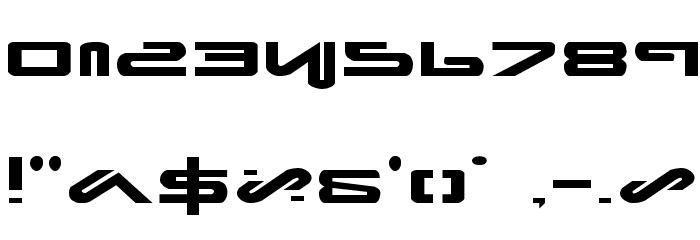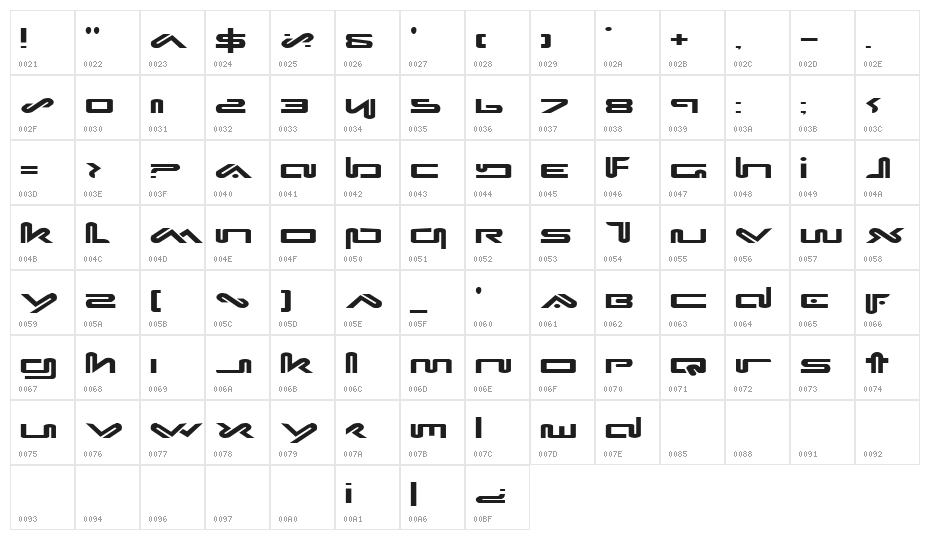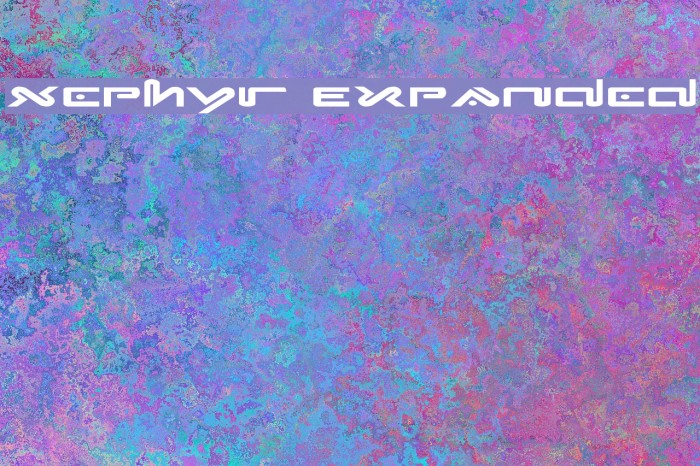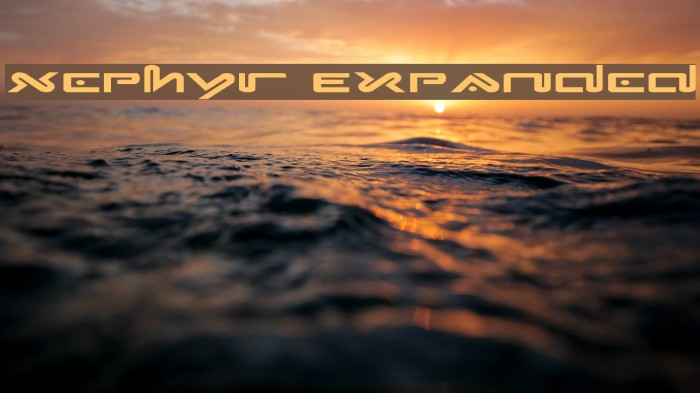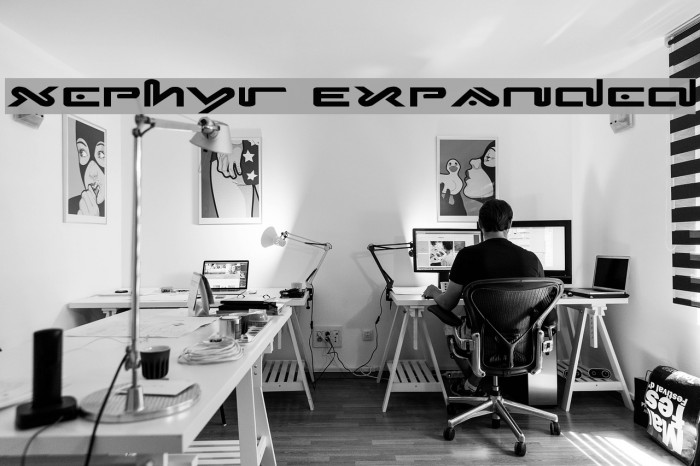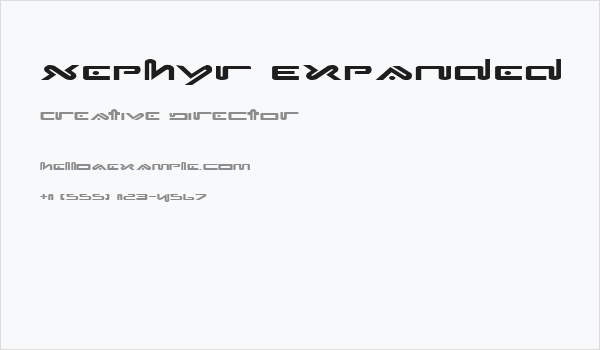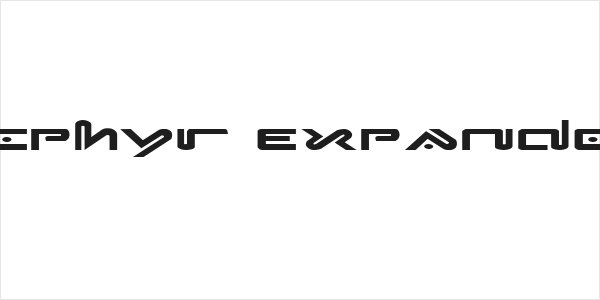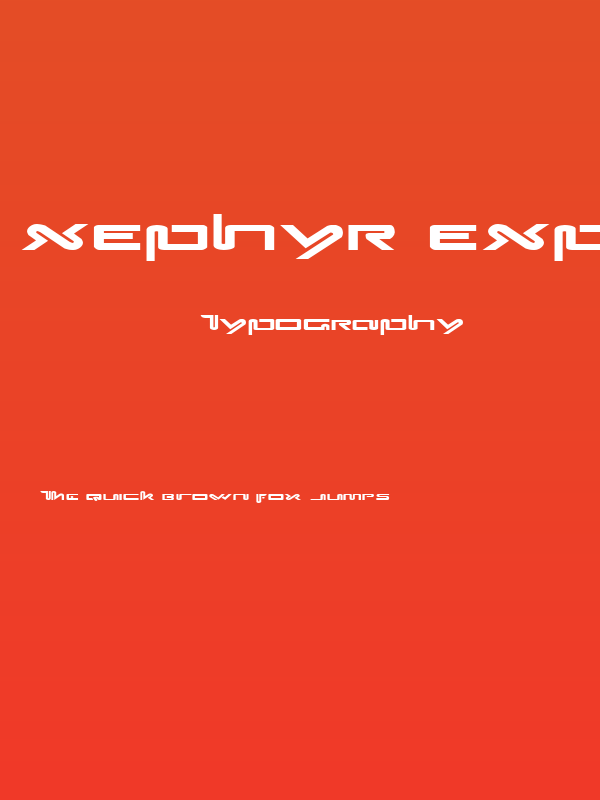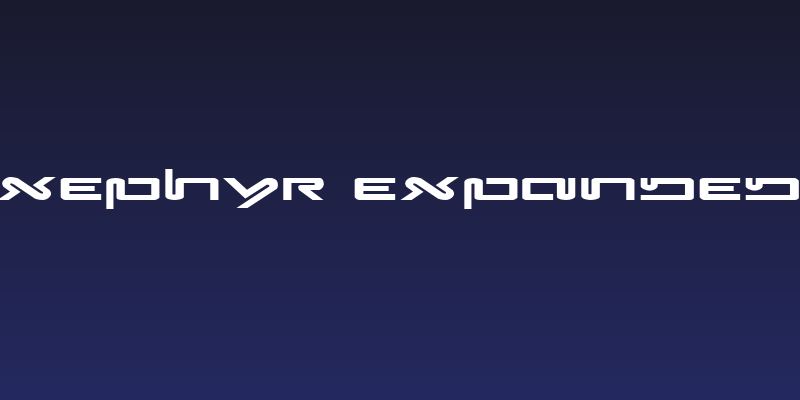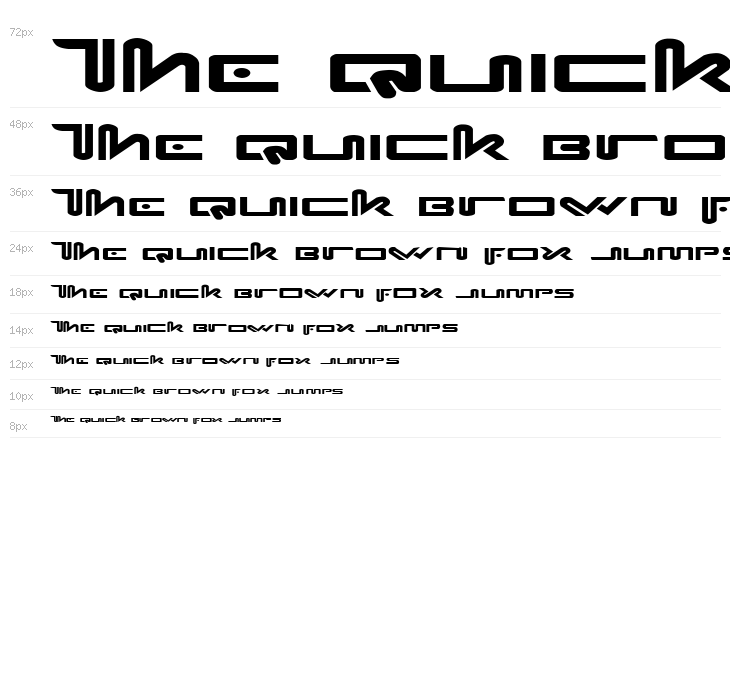
Xephyr Expanded Font
Xephyr Expanded Description
This font features a futuristic and geometric design, characterized by its bold and angular letterforms. The characters are constructed with a combination of straight lines and sharp angles, giving it a distinctly modern and tech-inspired appearance. The uppercase and lowercase letters maintain a consistent style, with unique shapes that make each character stand out. The numerals and special characters follow the same design principles, ensuring a cohesive look across all glyphs. This font's expanded width and bold weight contribute to its strong visual impact, making it ideal for attention-grabbing designs.